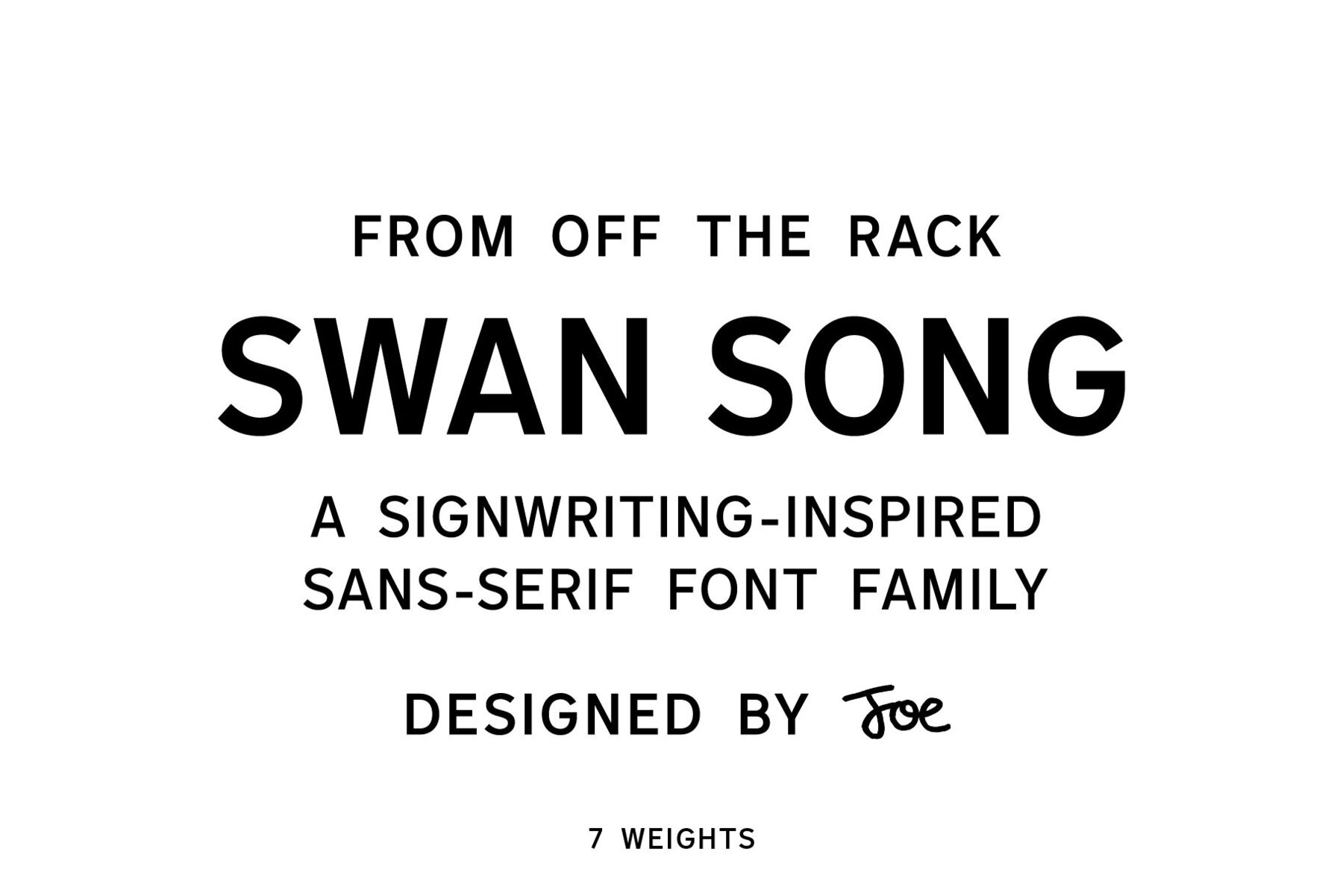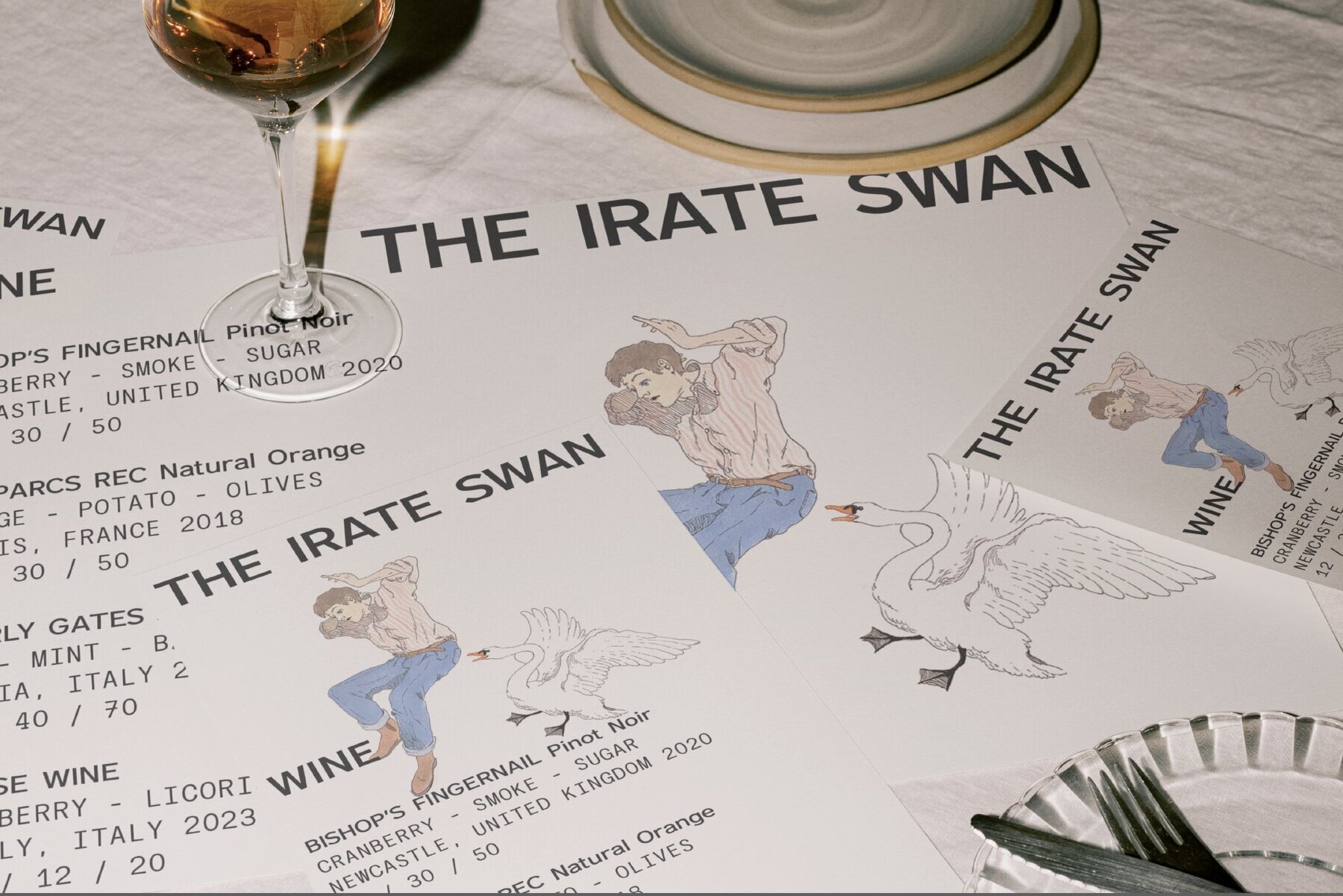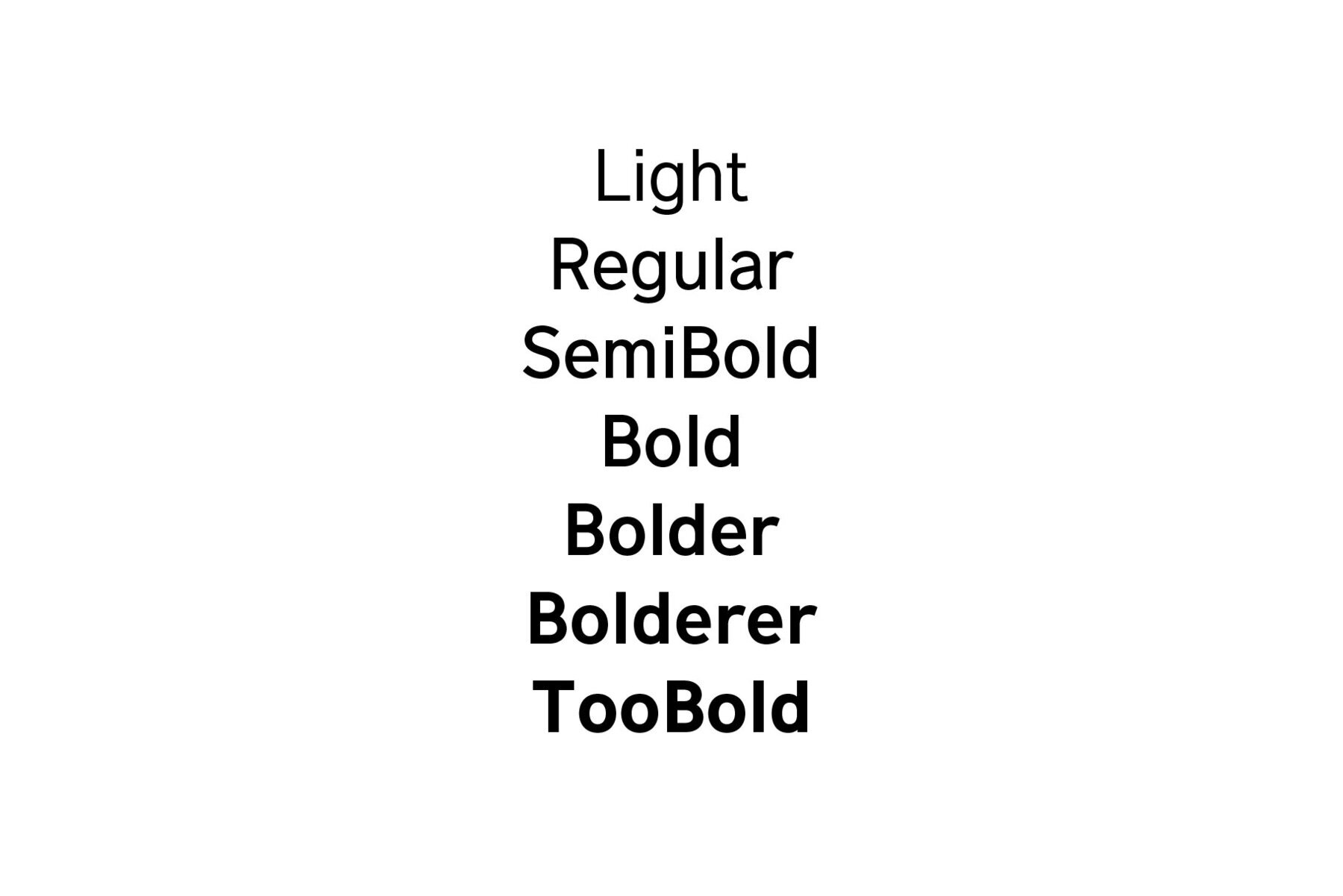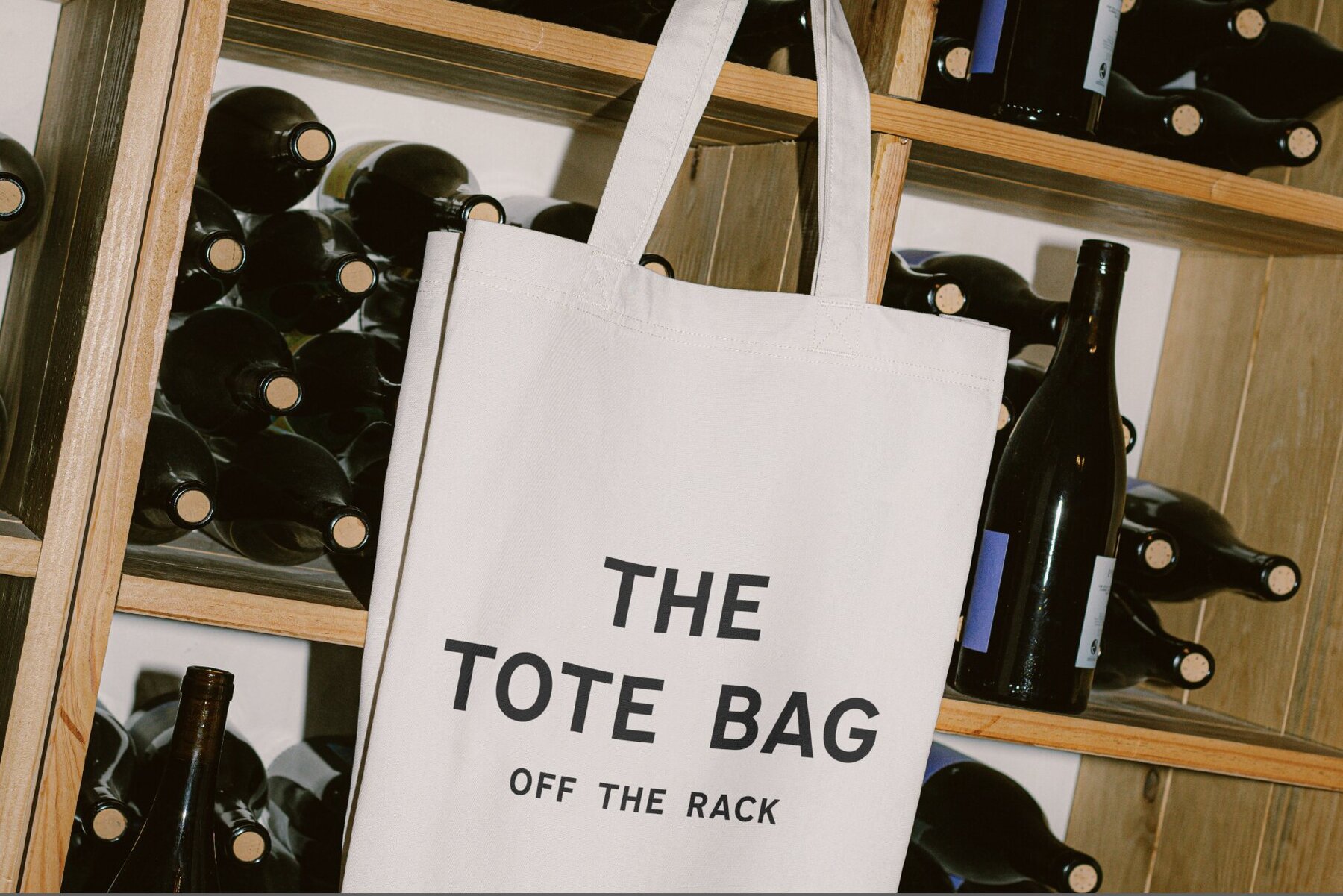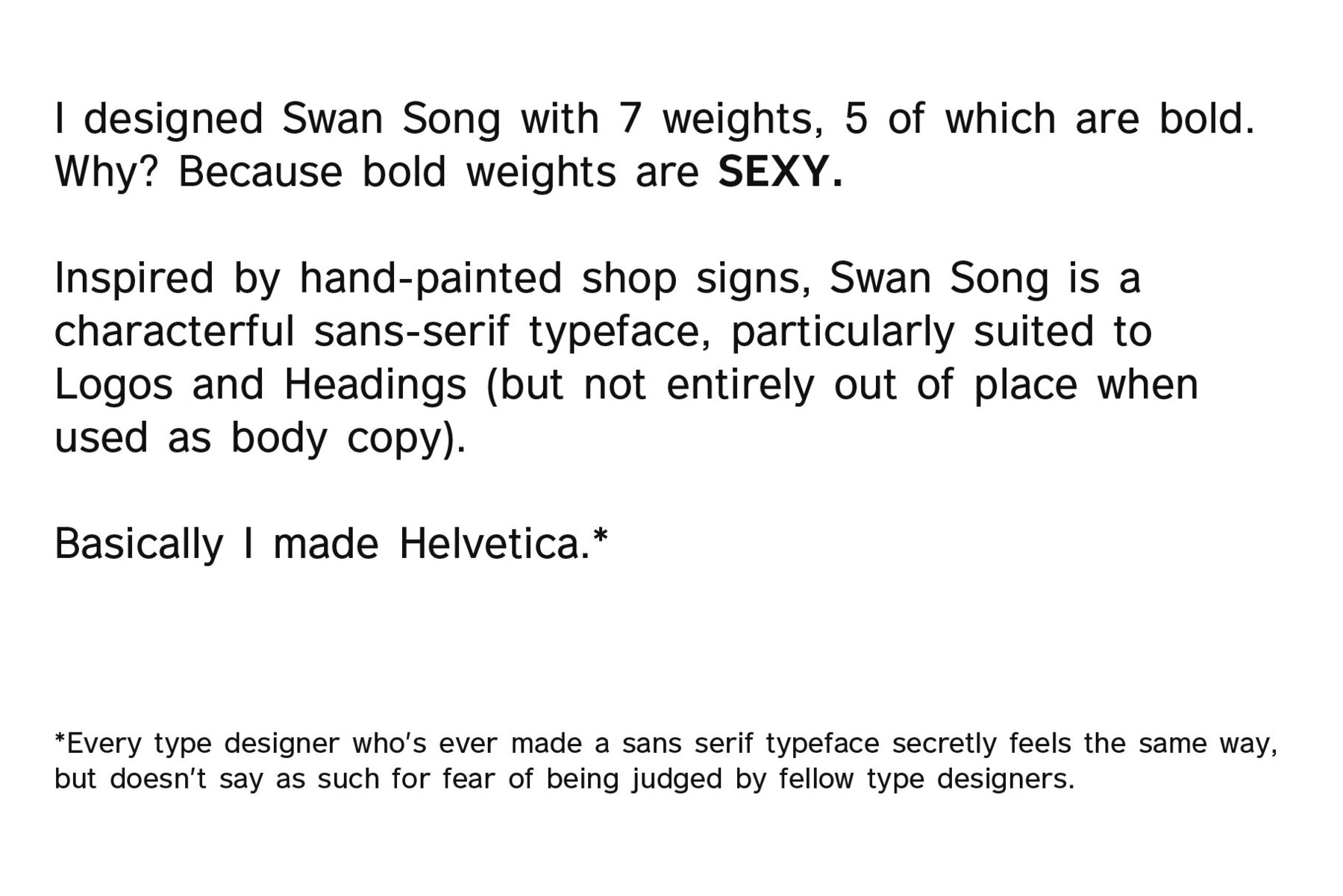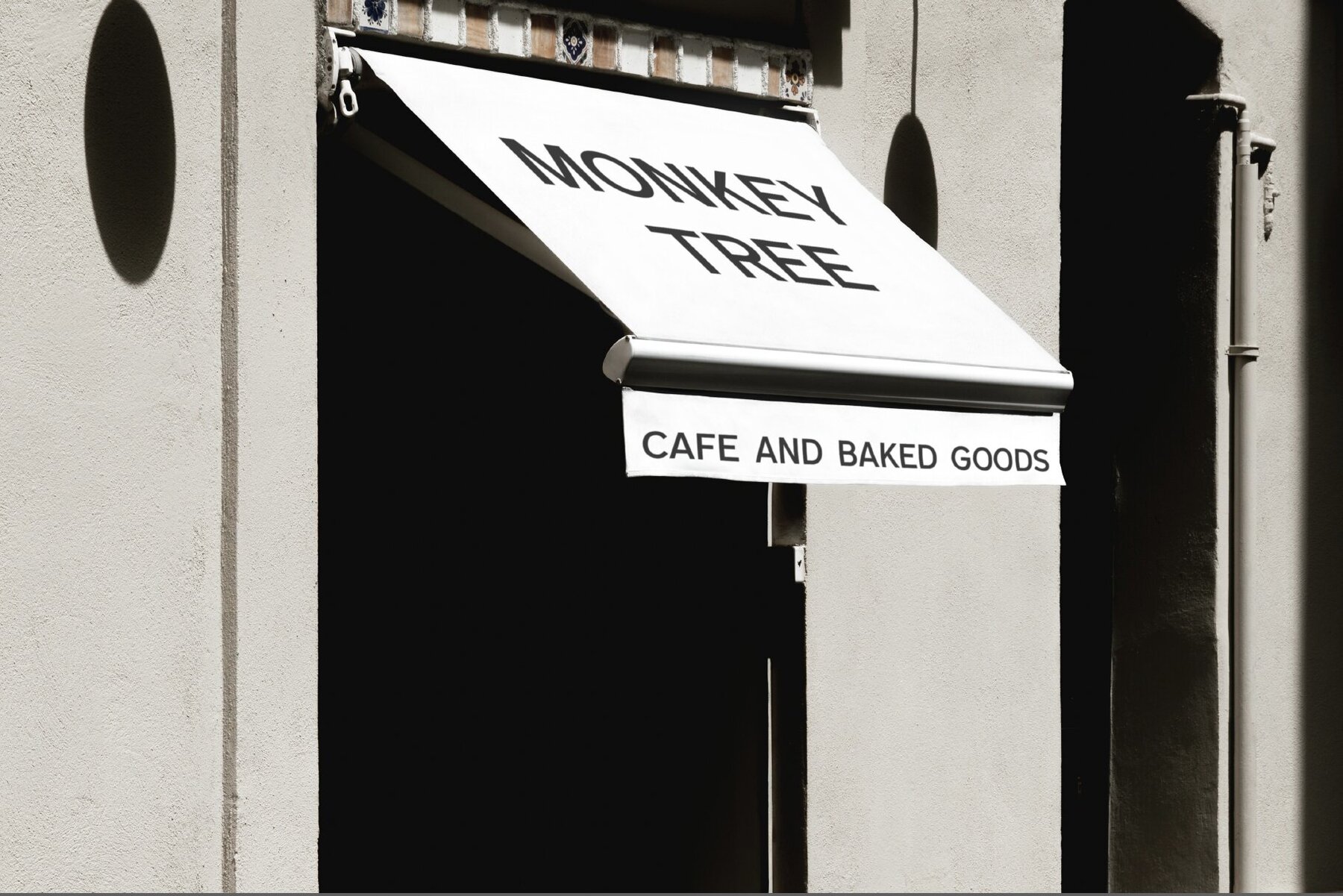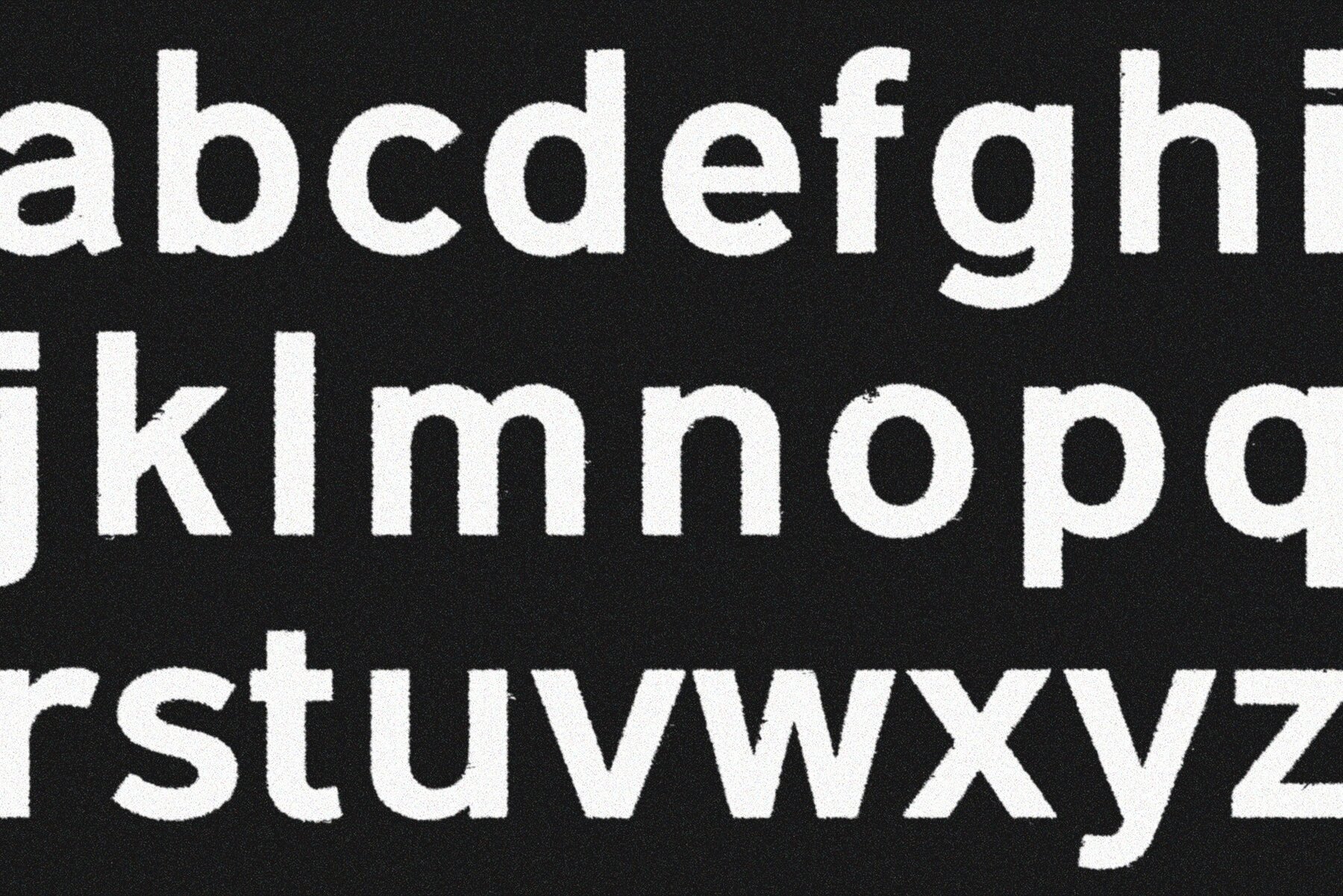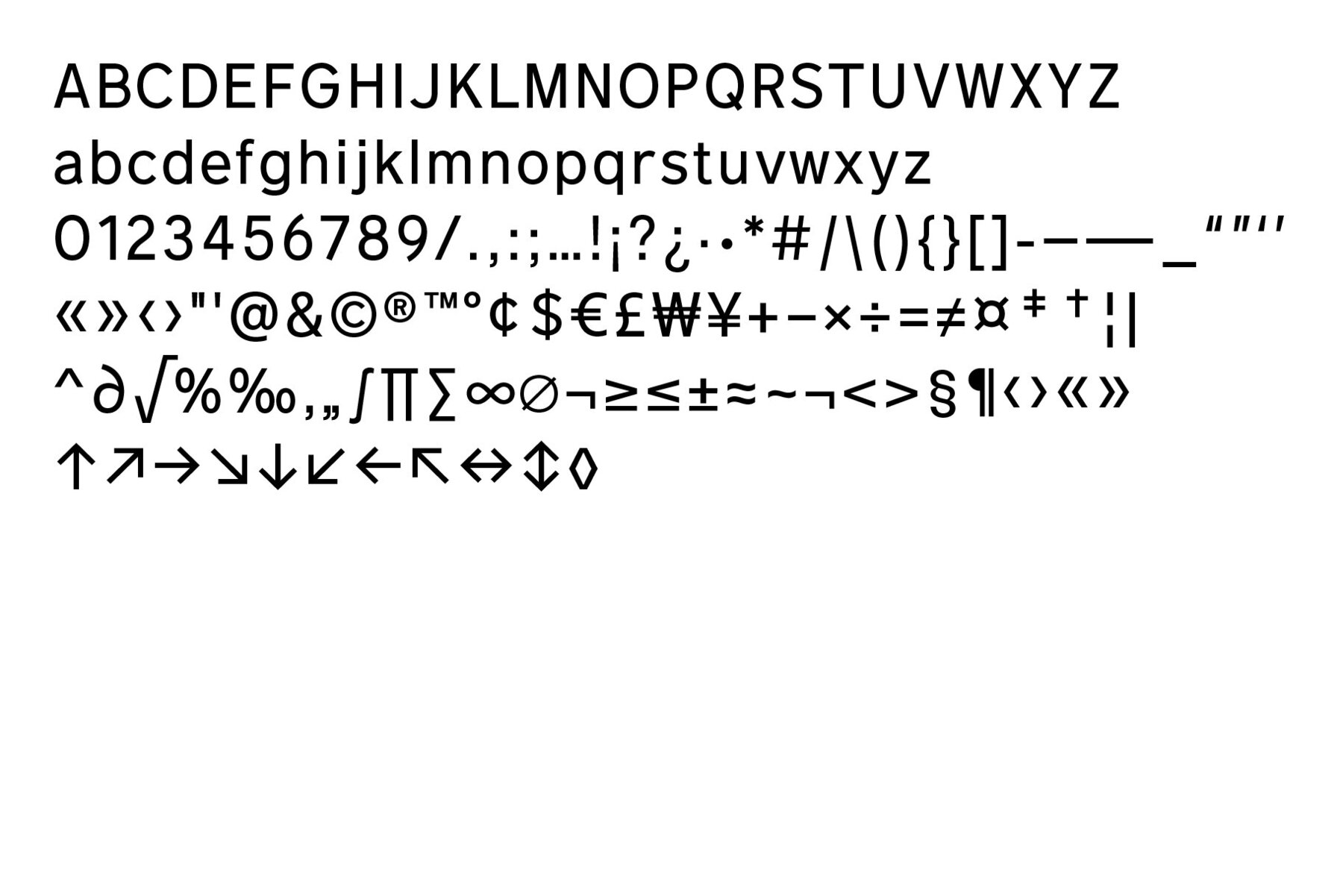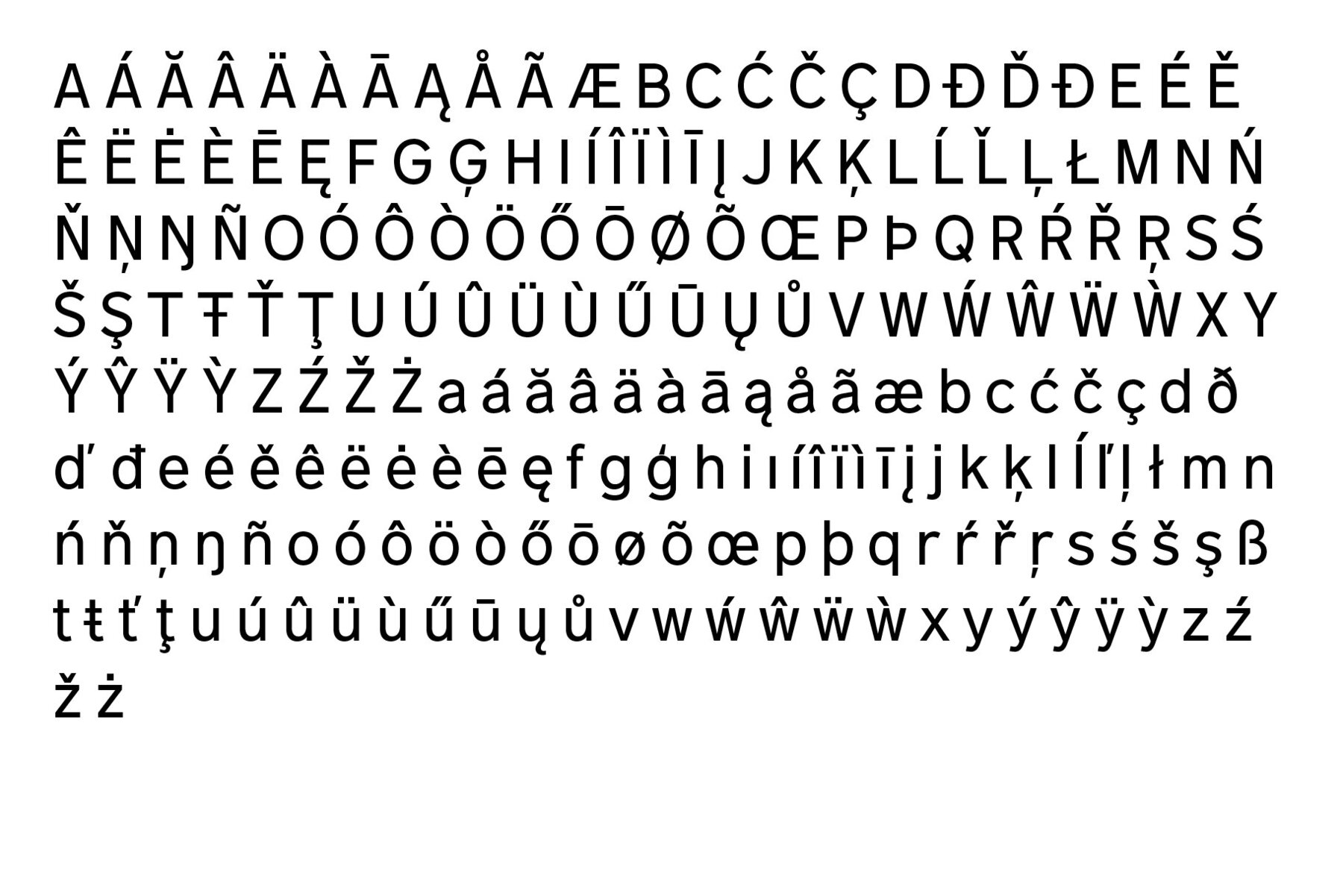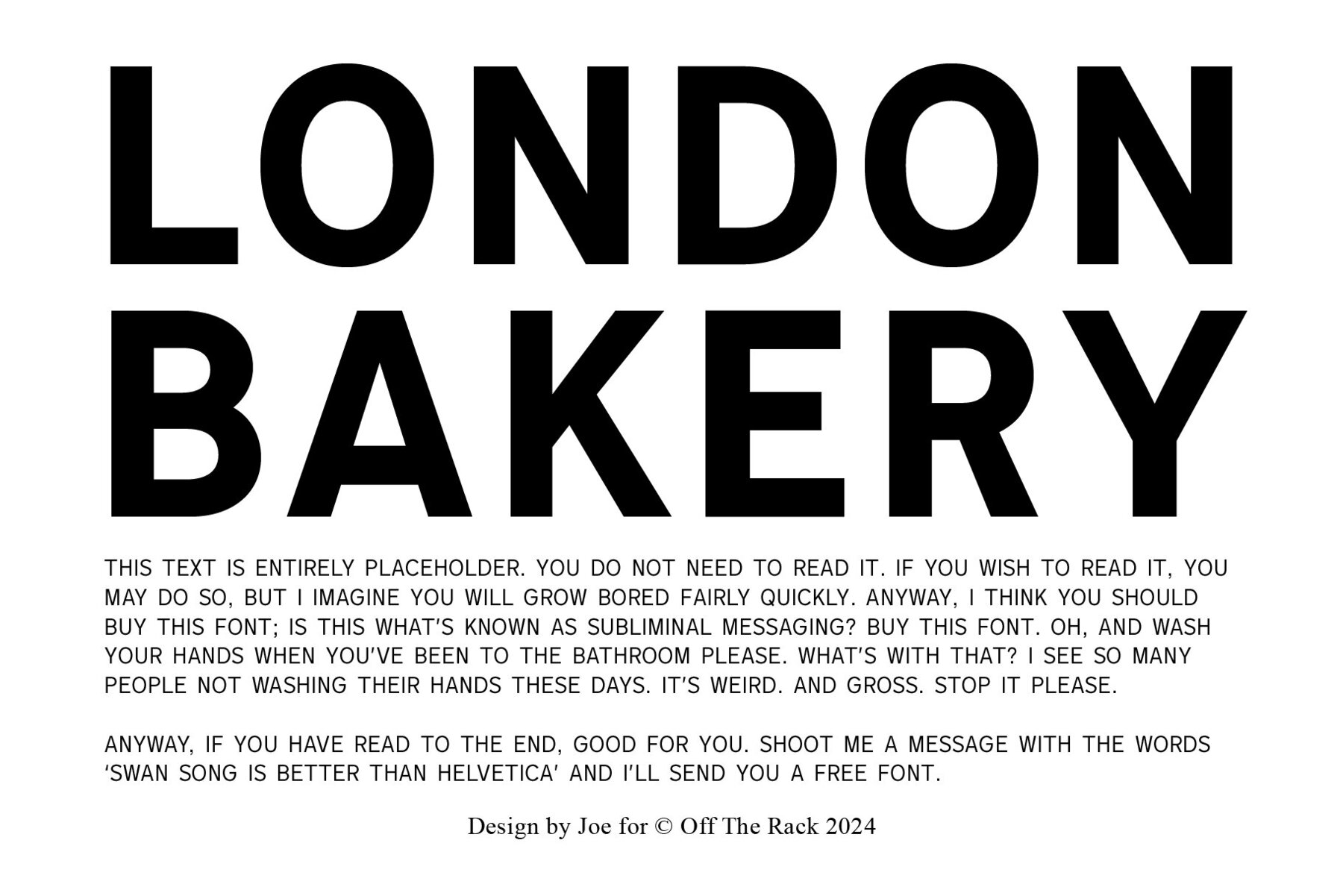
Swan Song Font
ANOTHER boring sans serif typeface? Yes! And No! Swan Song is a SEXY sans serif typeface, inspired by 19th-century hand-painted shop signs. Particularly well suited to logos, but also an all-round good alternative to Helvetica, Avenir, Gotham etc. Sick of the same boring sans fonts? Add Swan Song to your font library - no one else will notice, but you'llknow you're special. Contains 7 weights, and support for 80+ languages.